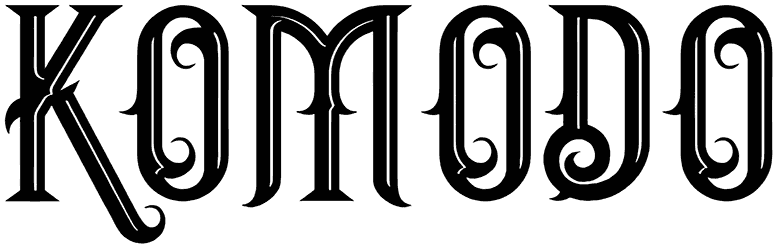
Komodo Font
If you are seeking a unique letterform to create a stunning visual for your layout, this antique font would be a great one. Komodo font doesn’t support lowercase letters, but it has two sets of capitals and two versions. This retro font will give a vintage and elegant visual to your creative projects, like a café stand board.